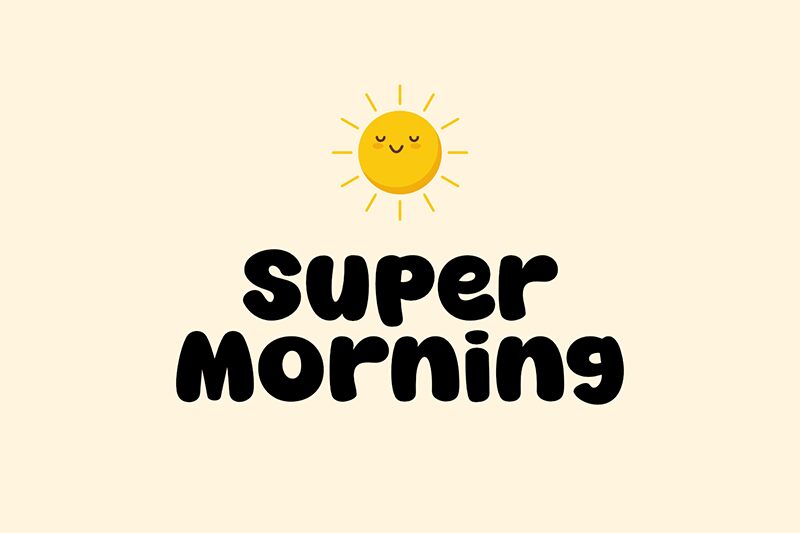
Super Morning
Super Morning font by fsuarez913 is a bold display cartoon typeface. The modern font comes with a rounded and smooth finish, which makes it visually friendly for readers. The thick letters of the font are condensed , yet their overall surface is large and clear enough to stay readable even at smaller sizes.